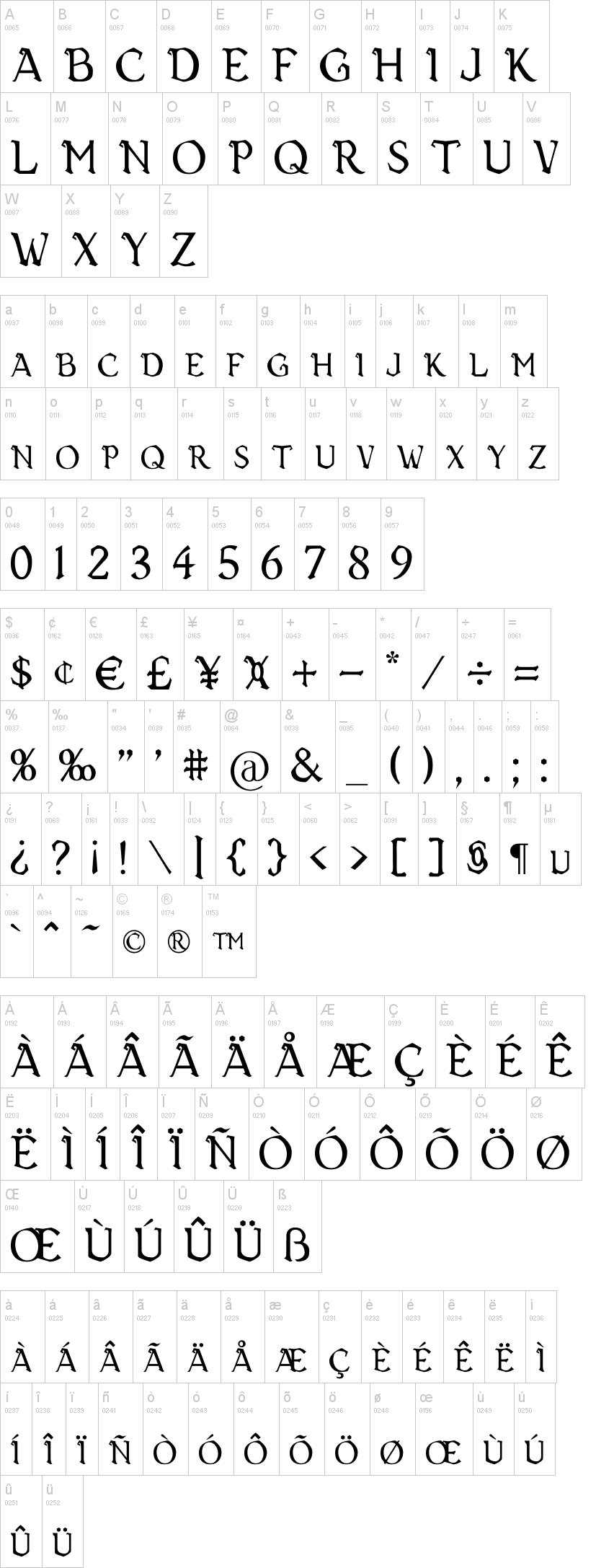
Vecna Italic.otfVecna Bold.otfVecna Bold Italic.otfNote of the authorVecna is based heavily on the title logos for WotCs fourth edition Dungeon and Dragons role-playing game line. This face is meant to evoke a medieval/renaissance look, with some old English flare. Includes full alphabet, extended punctuation, euro. Includes regular bold, italic, and bold-italic faces.